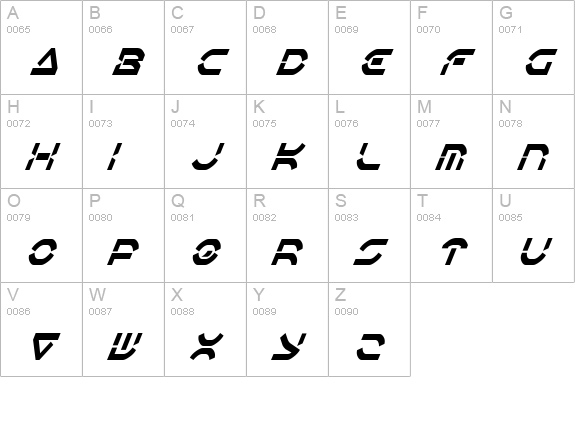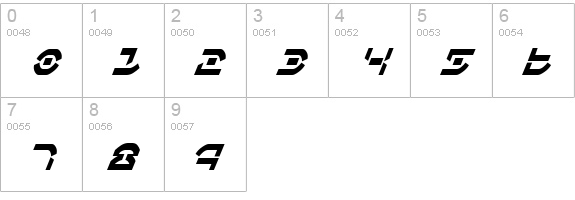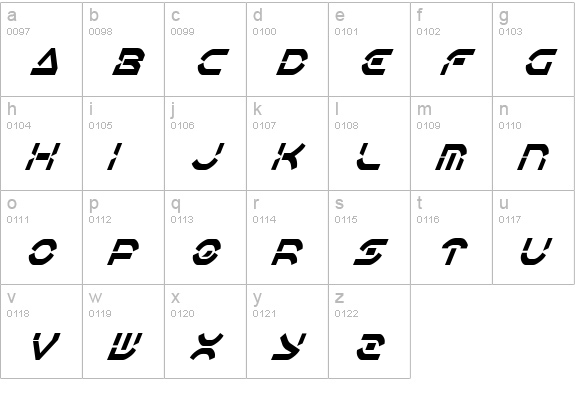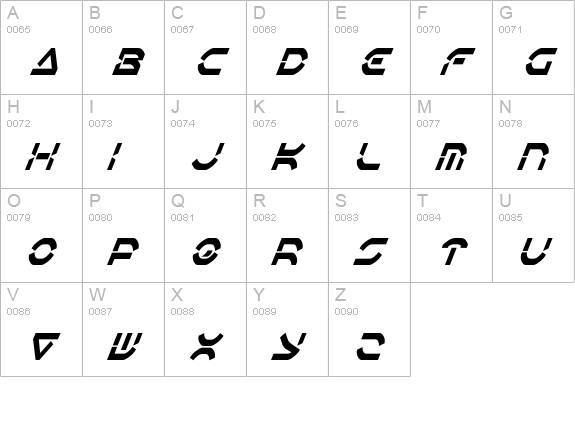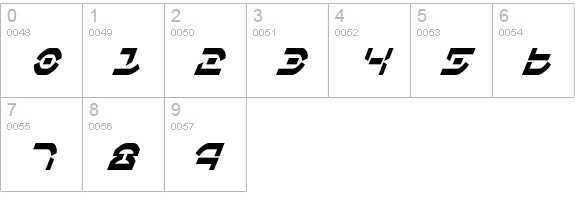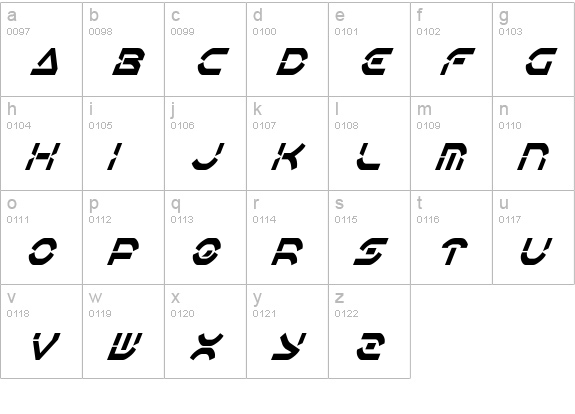
Oberon Deux Condensed Italic is a distinctive, condensed-width, italic variant in the Oberon typeface family \xE2\x80\x94 well suited to design and typography projects.
The Oberon Deux Condensed Italic font embodies a sleek and modern style, perfect for adding a touch of elegance to your designs. Its slanted and condensed form exudes sophistication and class, making it ideal for headlines, logos, and branding projects. The italicized characters add a sense of flair and dynamism to your text, drawing the eye and commanding attention. What sets Oberon Deux Condensed Italic apart is not only its striking design but also its accessibility. This exquisite font is available for free download at FontsMarket.com, allowing you to effortlessly incorporate it into your creative endeavors without any cost. Whether you're working on a website, poster, or any other graphic design project, Oberon Deux Condensed Italic is sure to elevate your work with its refined aesthetic and effortless charm. Download it today and unleash the power of this exceptional font in your projects.